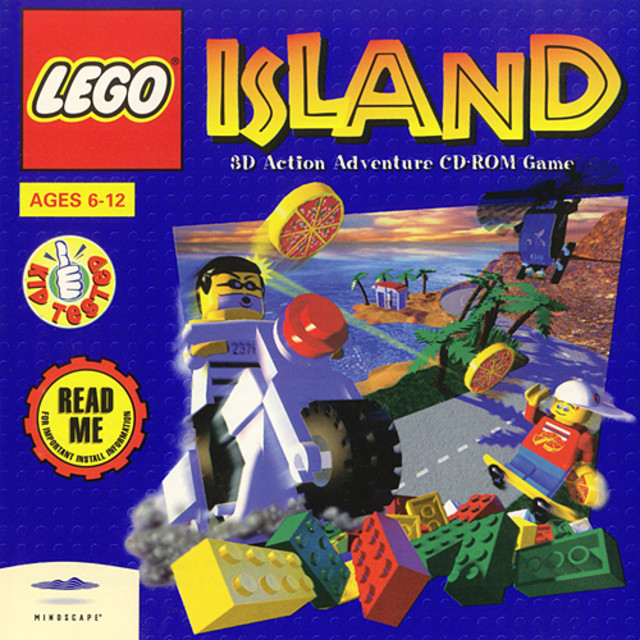
Lego Island Font
ActionLego Island is a Lego-themed action-adventure game developed and published by Mindscape. It was released for Microsoft Windows on September 26, 1997, as the second Lego video game and the first outside Japan. The game is set on the fictional Lego Island, where the player controls a character named Pepper Roni, who is tasked with helping to restore order to the island after it has been invaded by the Brickster, a criminal mastermind made of Lego bricks.
Neuland Inline D is the font used for the “island” part of the Lego Island game logo. Neuland, a typeface created in 1923 by Rudolf Koch for the Klingspor Type Foundry, is usually used when an "exotic" or "primitive" appearance is required in reference to African or African-American context.